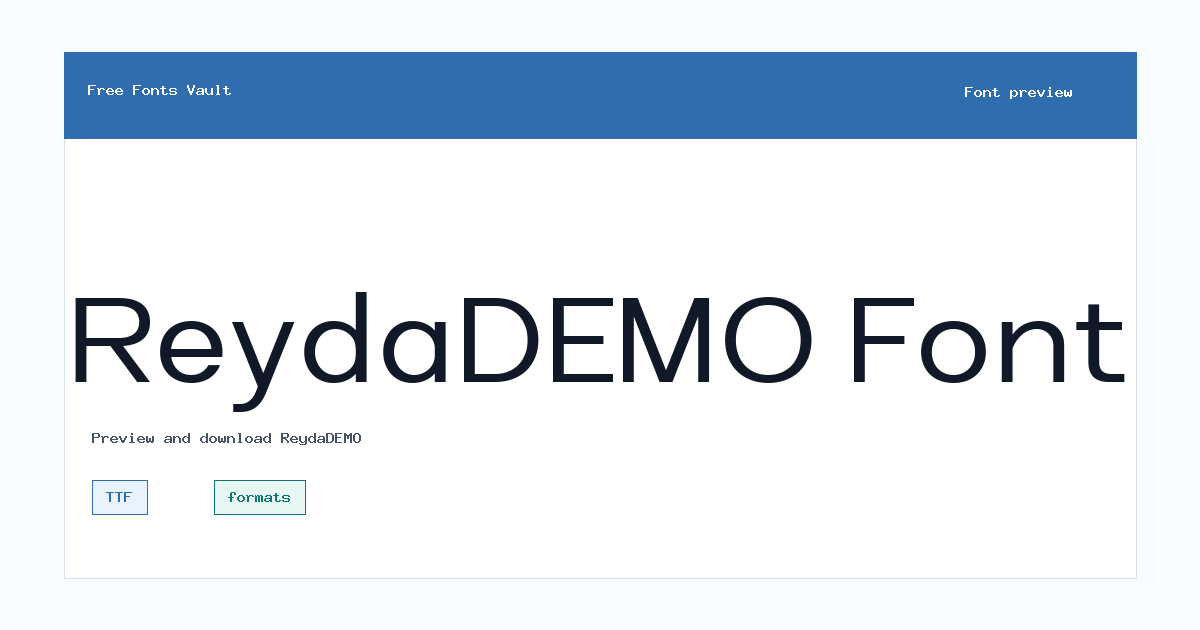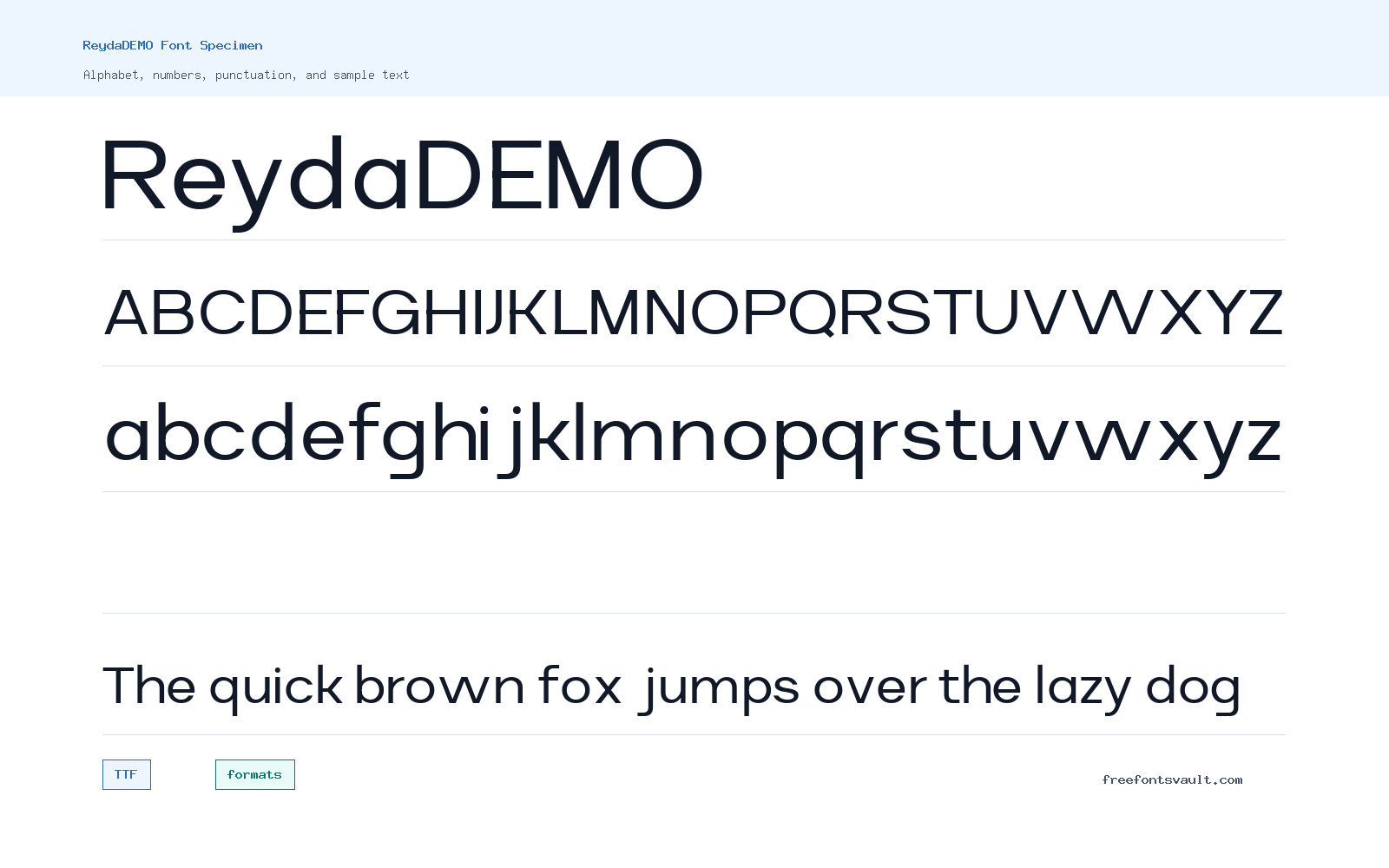
ReydaDEMO
- Designer Ragamkata Studio
ReydaDEMO is a clean demo sans serif font with a geometric, modern feel. It works best for short text where the letter shapes can stay clear and noticeable.
About ReydaDEMO Font
ReydaDEMO Regular is credited to Ragamkata Studio and is shared as a TTF font file. Befonts places it in geometric, grotesque, and sans serif categories, which fits its simple upright structure and display-friendly look. The available file is a regular-weight style, so it is best treated as a single-style font rather than a full type family with bold, italic, or multiple weights.
Use the preview box to test the words you actually plan to design with, especially names, titles, product labels, and short headings. Since the listed character set is small, check punctuation, numbers, accents, and symbols before committing it to a project. ReydaDEMO can be useful for personal posters, social graphics, mockups, logo drafts, and simple branding concepts, but it should be tested carefully at small sizes because a display-minded sans serif can lose impact in long paragraphs.
This is the kind of font to test with real project text before deciding. A short name may look clean and modern, while longer phrases can feel crowded if the spacing is too tight. Try uppercase, lowercase, numbers, and punctuation in the preview, then compare the result at both headline size and smaller caption size before downloading.
- Geometric sans serif style suited to short headings, names, and display text
- Single regular style suited to quick mockups and short display settings
- Best checked with your own punctuation and numbers because the character coverage appears limited
- Personal-use posters, social posts, and title graphics
- Logo mockups, brand concept sketches, and short display layouts
ReydaDEMO Regular is credited to Ragamkata Studio, with Ragamkata also appearing as the designer name.
ReydaDEMO Regular is credited to Ragamkata Studio. Befonts also lists the designer name as Ragamkata.
What style of font is ReydaDEMO?
It is a sans serif font with geometric and grotesque styling. It is most useful for short display text rather than long reading copy.